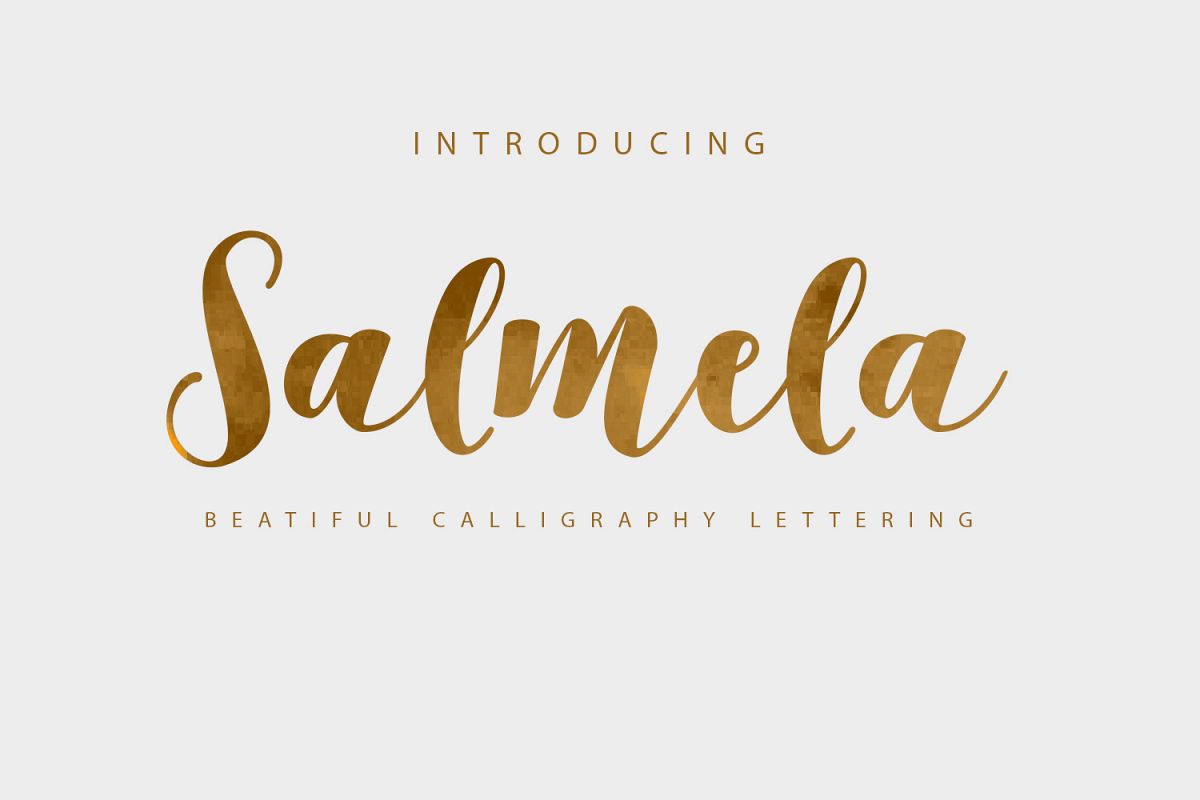
Salmela Script
Hi ... Introduce Salmela Script typeface modern, creative fonts present with a variety of styles and capitalization guidelines incorporated in the beginning and end of a beautiful font, font Including over 400 different this engine is equipped with a full fly among others, alternating style , terminal form, forms early and lateIt is a good idea to use it for the logo, inspirational quotes, graphic t-shirts, art typography, clothes, labels, badges, posters, business cards, wedding invitation style, mold, signs, emblems, book cover design headline, title, etc
Salmela Script  Reviews These fonts match the growing market today, with the form of Cursive typeface design style is soft, you can mix with fun and feel feminine. Trendy and a wonderful way to highlight your best party celebration, as supporters such as wedding invitations, parties, graduations, birthdays, meetings, and other